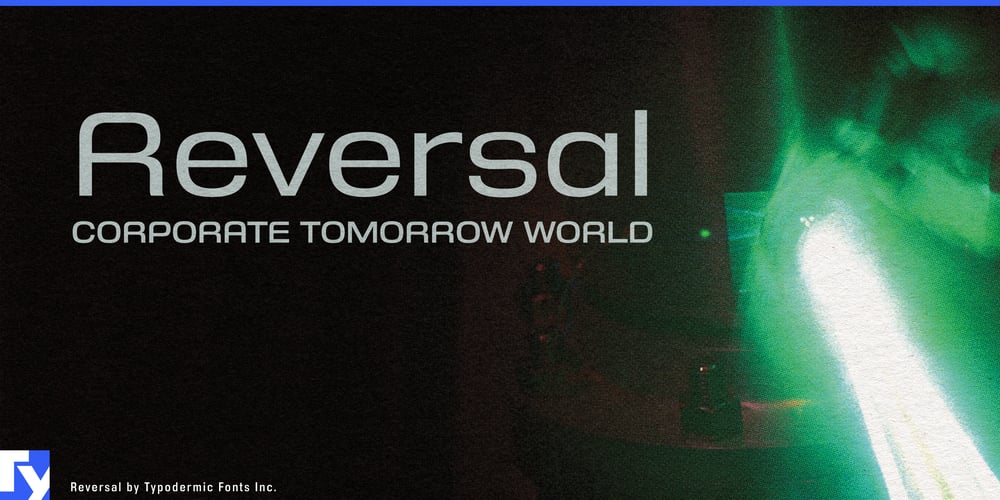
Reversal
Reversal font
Reversal Font Family was designed by Ray Larabie and published by Typodermic. Reversal contains 14 styles and family package options. Enter the realm of Reversal, a sans-serif typeface that embodies the essence of ultramodern product design. Its superelliptical letterforms echo the sleek contours of cutting-edge technology, creating a visual language that speaks fluently to our digital age.Reversal doesn’t merely reflect contemporary aesthetics—it propels them forward. Drawing inspiration from the smooth, tactile surfaces of avant-garde vehicles and state-of-the-art appliances, this typeface marries squarish geometry with organic readability. The result is a typography that feels simultaneously familiar and daringly innovative, perfect for brands that push the boundaries of what’s possible. In the hands of discerning designers, Reversal becomes a powerful tool for visual communication. Its clean lines and precise forms cut through the noise of oversaturated digital landscapes, delivering messages with laser-like clarity. From sleek user interfaces to bold marketing campaigns, Reversal infuses every project with an air of sophisticated futurism.Versatility is key in our rapidly evolving digital ecosystem, and Reversal delivers in spades. With seven meticulously crafted weights and their italic counterparts, this typeface offers unparalleled flexibility. Whether you’re designing for microscopic smartwatch screens or commanding digital billboards, Reversal maintains its integrity and impact across all scales and mediums. Reversal’s linguistic prowess matches its visual innovation. Supporting a vast array of Latin-based European writing systems, it ensures your message resonates clearly from Helsinki to Lisbon, from Reykjavík to Istanbul. This typeface doesn’t just cross borders—it transcends them, speaking the universal language of forward-thinking design. Choose Reversal when you need typography that doesn’t just keep pace with the future—it defines it. Its unique blend of geometric precision and organic flow makes it the ideal choice for brands and projects that aim to be at the forefront of their industries.Whether you’re crafting the interface for the next revolutionary app or designing the brand identity for a cutting-edge tech startup, Reversal provides the typographic foundation to bring your vision to life. Let Reversal be the cornerstone of your next groundbreaking design, and watch as it transforms your ideas into a bold vision of tomorrow, today.